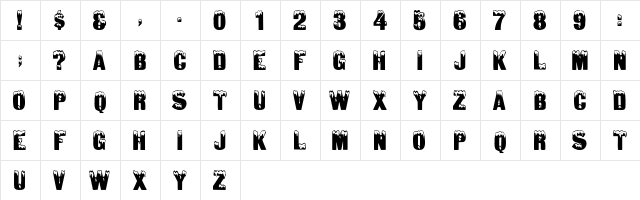
IglooCaps Regular
Design Context for IglooCaps Typeface
IglooCaps is a composed and adaptable typeface that performs quietly and consistently across a wide range of design contexts.